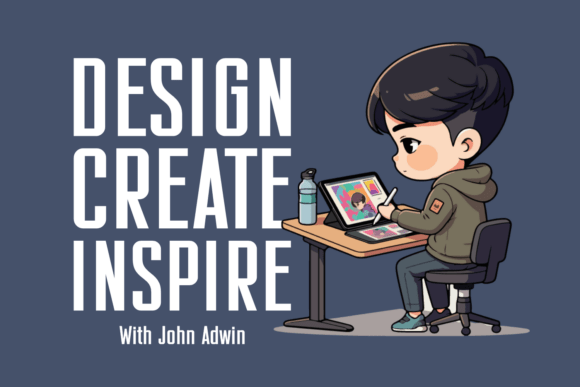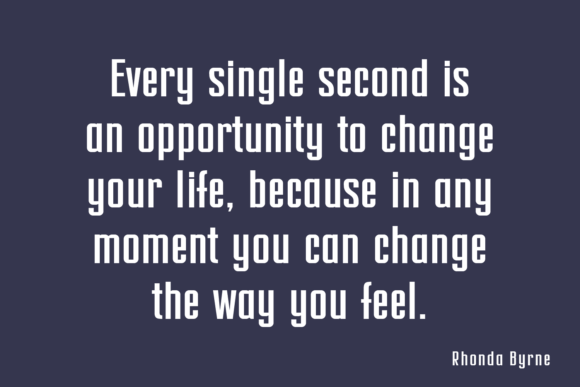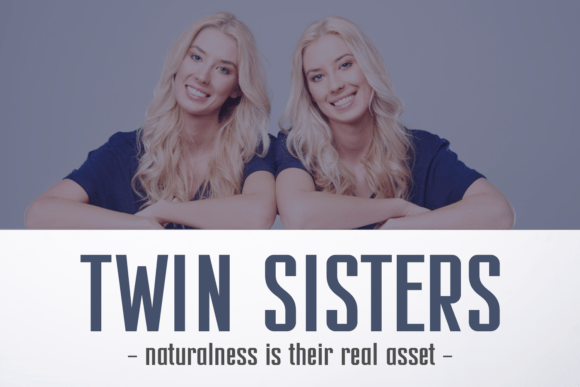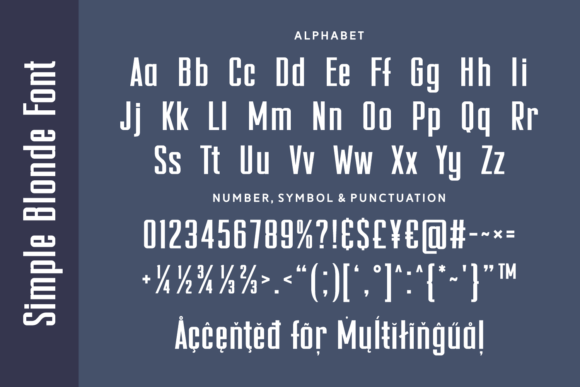
Introduction to Simple Blonde Font
A promotional image for “Simple Blonde,” a sans serif font.
The moody and modern blue-tinted background complements the font’s strong, geometric, and chic character, making it suitable for contemporary branding, headlines, and fashion-forward projects .
Key Features of Simple Blonde Font